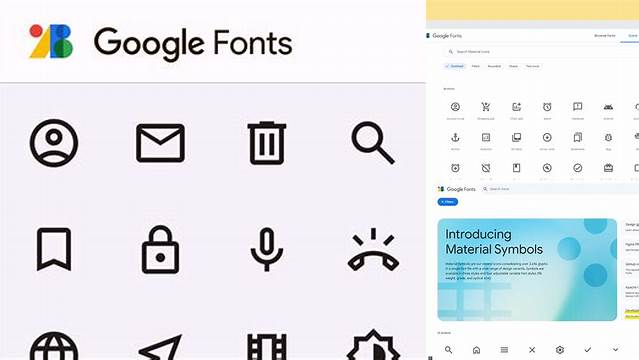
Material Icons Outlined: Google Fonts & Href Guide
Hey guys! Ever wondered how to spice up your website with those sleek, outlined Material Icons from Google? Well, you're in the right place! We're diving deep into how to use them, focusing on the href attribute and Google Fonts. Let's get started and make your website look awesome!
What Are Material Icons Outlined?
Material Icons Outlined are a set of icons designed by Google, following the Material Design principles. What sets them apart is their outlined style, giving a clean and modern look to any website or application. These icons are versatile and cover a wide range of categories, from action and alert to communication and content. Using Material Icons Outlined can significantly enhance the user interface by providing visual cues that are both intuitive and aesthetically pleasing. These icons are designed to be simple, minimal, and easy to recognize, ensuring they don't distract from the content but rather complement it. Integrating them into your projects is straightforward, thanks to Google's easy-to-use services and resources, making it a popular choice among developers and designers alike. Whether you're building a website, a mobile app, or any other digital interface, Material Icons Outlined offer a cohesive and professional look that can elevate the overall user experience.
Why Use Material Icons in Your Projects?
Understanding Google Fonts for Material Icons
Integrating Material Icons Outlined into Your Website